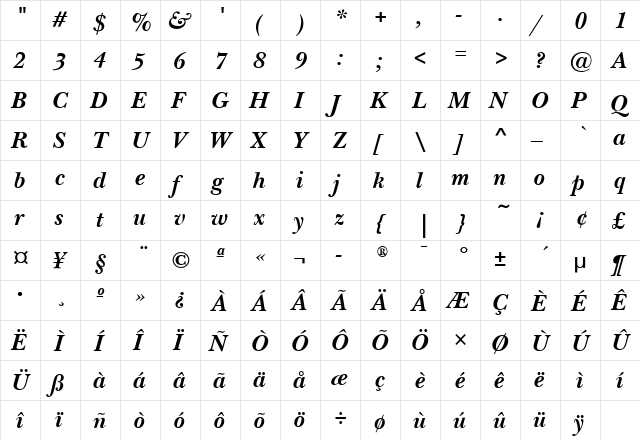
NewBaskervilleITC Bold Italic Font Preview
Design Context for NewBaskervilleITC Typeface
NewBaskervilleITC takes a measured approach to typography — its balanced proportions and neutral character make it a reliable workhorse for both digital and print work. Its italic angle brings a sense of urgency and motion to the letterforms. The heavy weight commands attention and anchors typographic hierarchies.